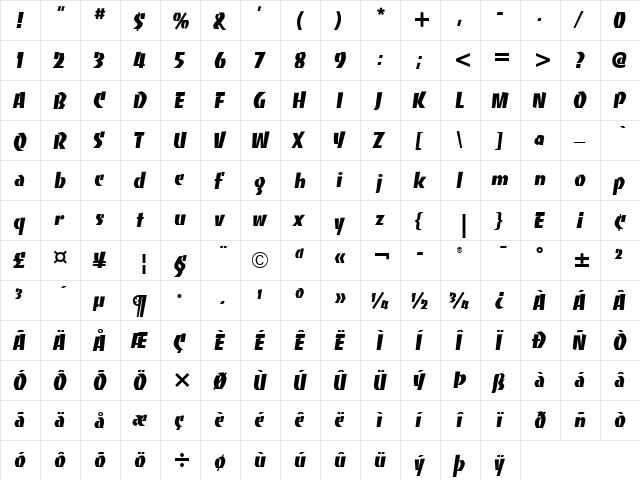
Banco ITC Heavy
| Foundry | International Typeface Corporation |
Design Context for Banco ITC Typeface
Banco ITC is a composed and adaptable typeface that performs quietly and consistently across a wide range of design contexts.